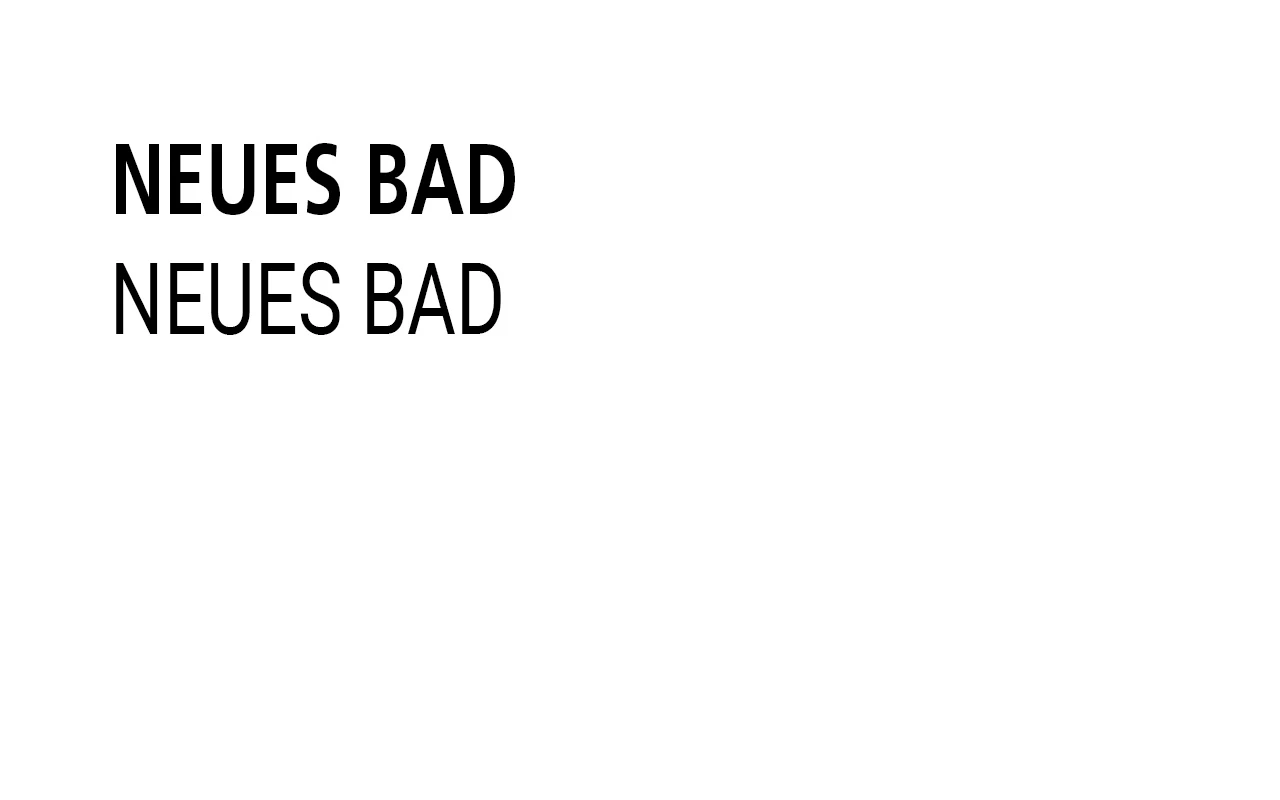
Font looks different in Photoshop than on System and other Adobe Tools
My fonts look different in Photoshop, much more narrow.
First example from Illustrator: Frutiger LT Pro 65 Bold and Roboto Regular
Second example same fonts in Photoshop 20.0.1
Check Paragraph Styles, Advance Character Formats, Horizontal Scale should be 100%.
This fixed it for me, when I created a new paragraph style and switched over to it. But I can not identify any values in the basic paragraph style that cloud cause the problem. Anyway thank you for your kind support.
And make sure that Horizontal scale is set to 100% in the Character panel.
This was also my thought, but this looks fine
Start by checking your document's pixel aspect ratio.
Pixel Aspect in PS is set to squared, so should be fine.